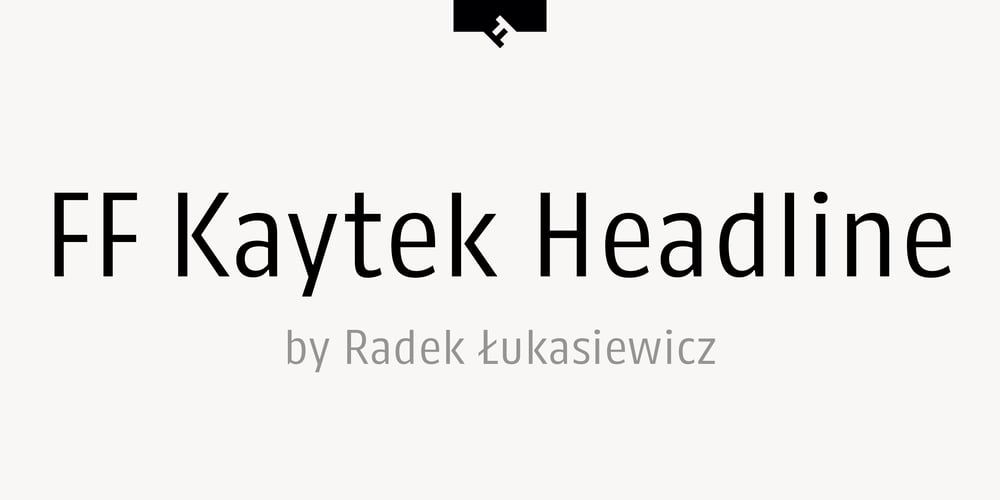
FF Kaytek Headline Font Family was designed by Radek Łukasiewicz and published by FontFont. FF Kaytek Headline contains 7 styles and family package options. Kaytek™ Headline completes the Kaytek typeface family with seven weights optimized for display purposes. Like the Kaytek Sans it is a fresh take on the correspondence typefaces of the 90s – which were originally designed for the demands of office environments. Just like its predecessors, this text typeface is robust and hard-working – meaning it works well in challenging design or printing environments – but it’s not without personality. Look closer at the lowercase g and a, especially in the italic, and you can see some unexpected elements of subversiveness within the design Every style of the typeface takes up exactly the same amount of space, thanks to the careful creation by Radek Lukasiewicz. This means designers can switch between styles without the text being reflowed, making it particularly useful in magazines, where space might be limited, and also on the internet, where hover links appear in a different style Kaytek Headline comes in seven weights, from Thin to ExtraBlack. Kaytek Sans, Kaytek Slab, and Kaytek Rounded, are also available.